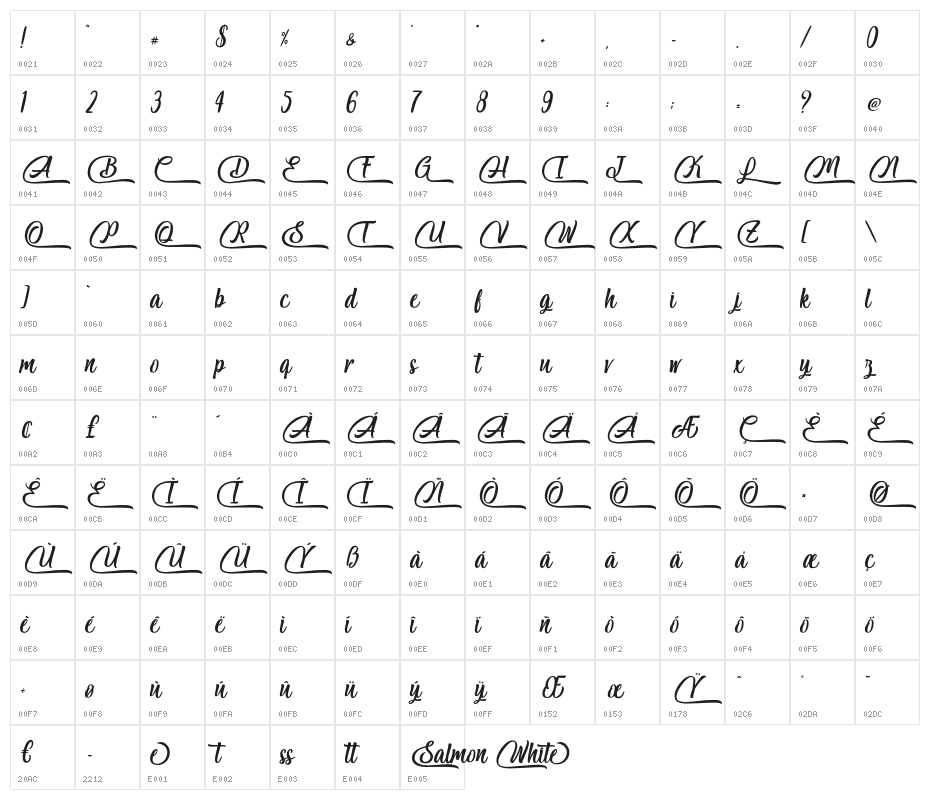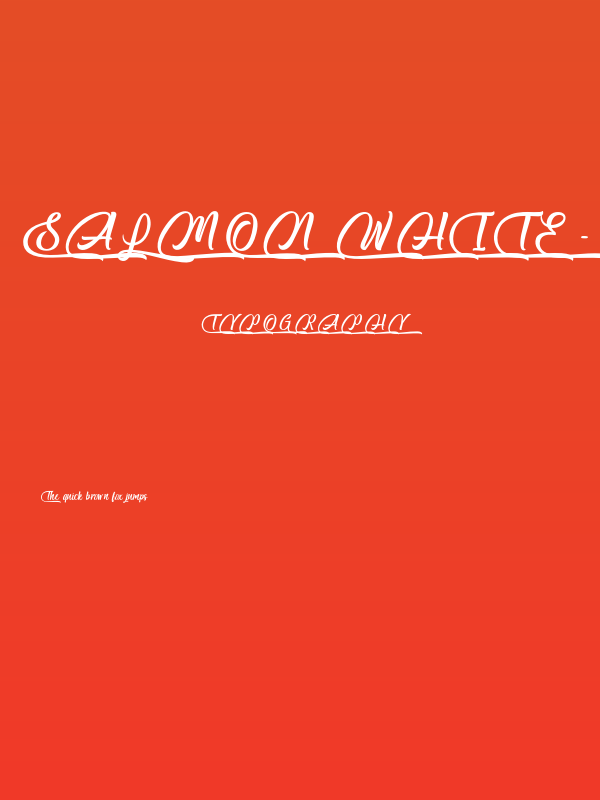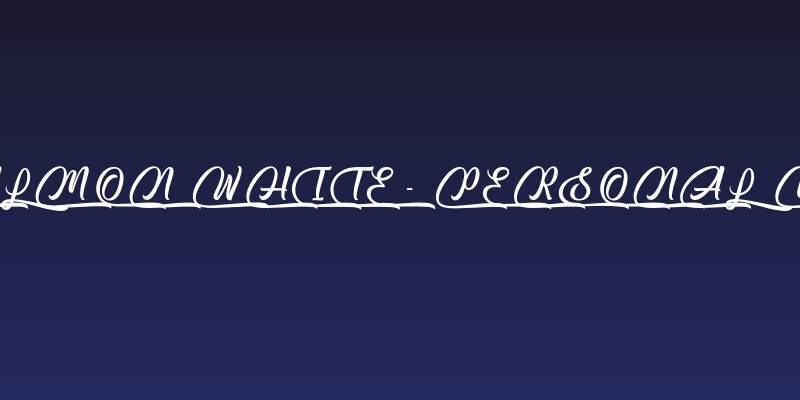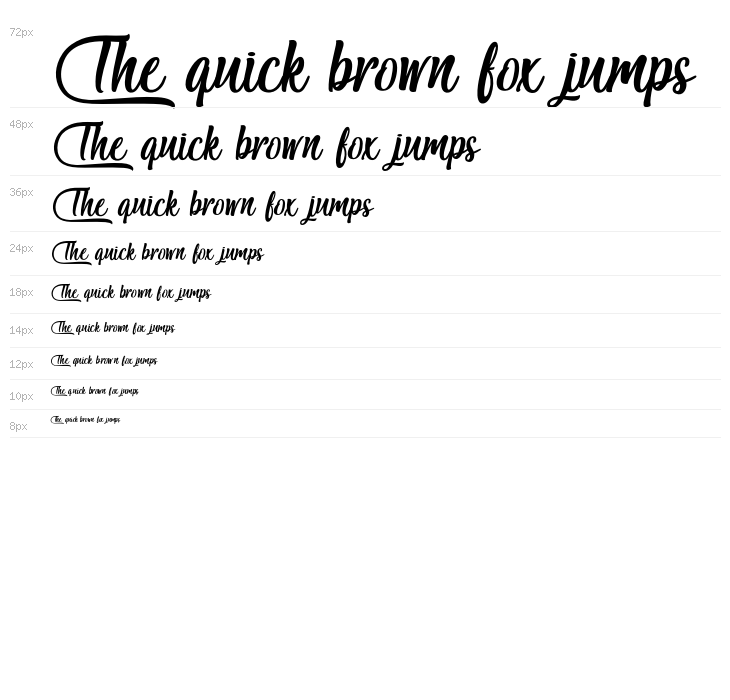
Salmon White - Personal Use Font
Salmon White - Personal Use Description
This font features a dynamic and flowing script style, characterized by its elegant and cursive uppercase letters that maintain a consistent baseline, creating a harmonious and connected appearance. The lowercase letters are bold and slightly slanted, adding a sense of movement and fluidity. The numerals are clear and bold, ensuring readability, while the special characters maintain the same stylistic flair, making them suitable for decorative purposes. The overall design is both sophisticated and approachable, making it versatile for various design needs.